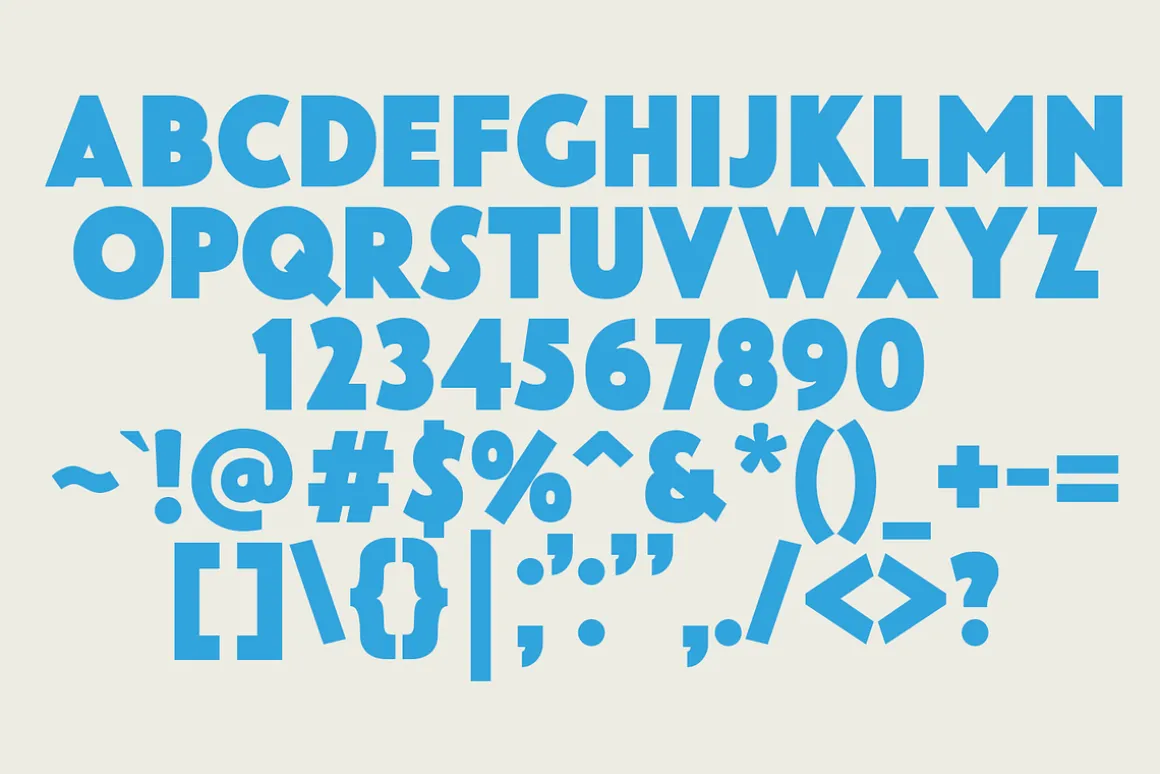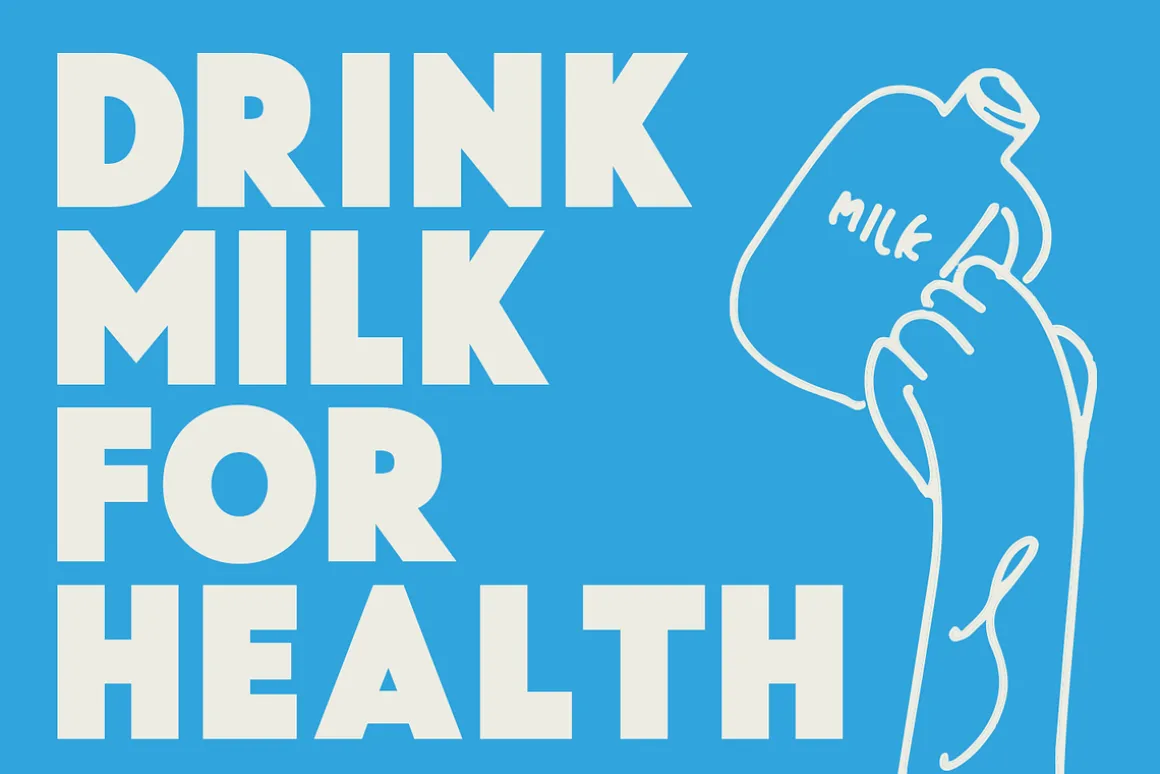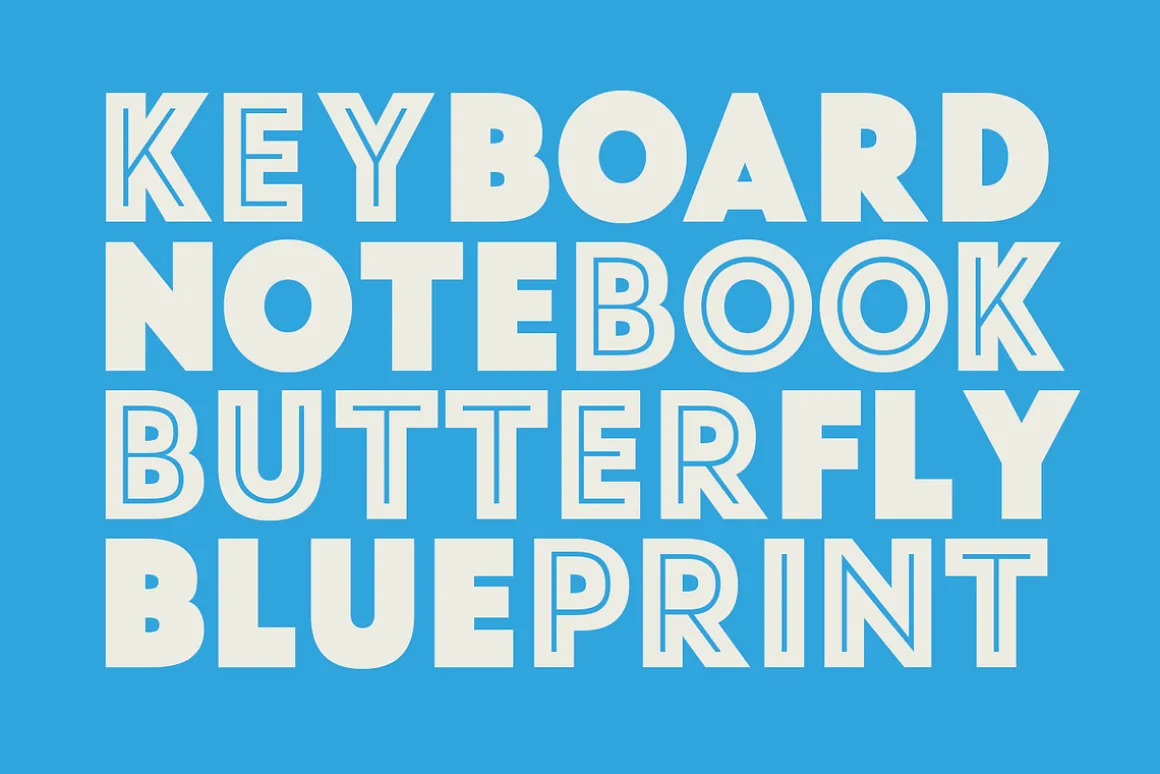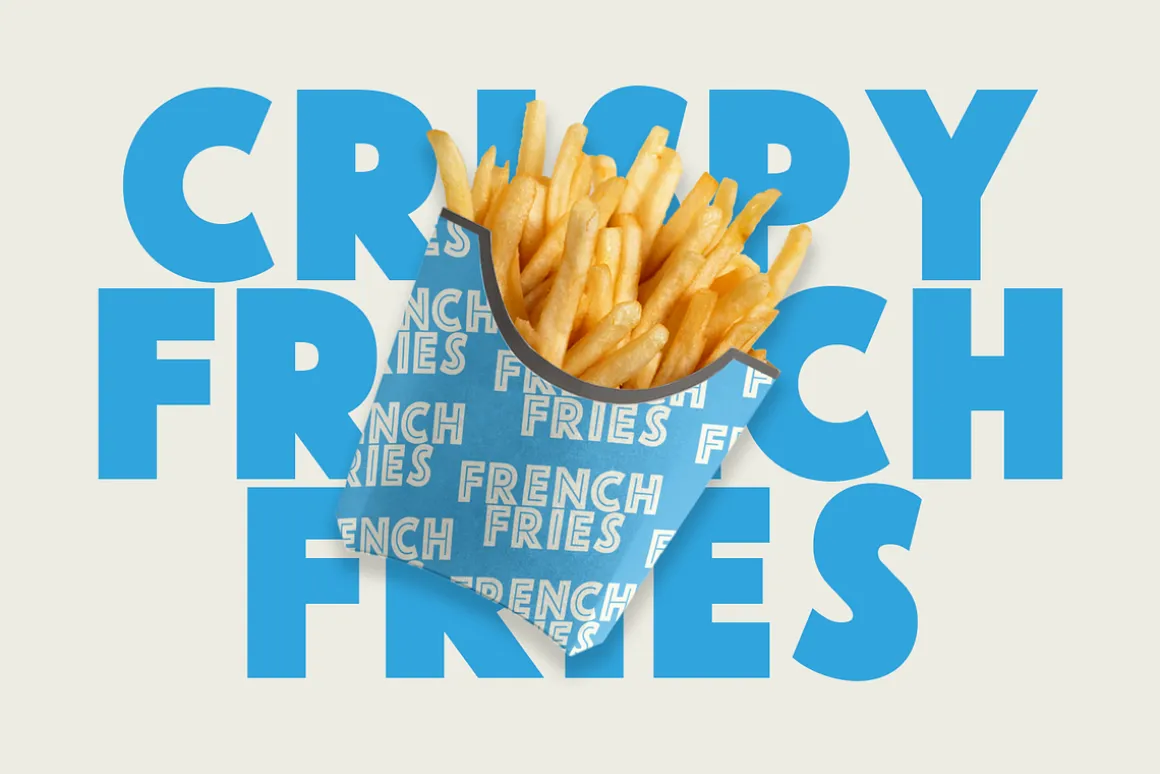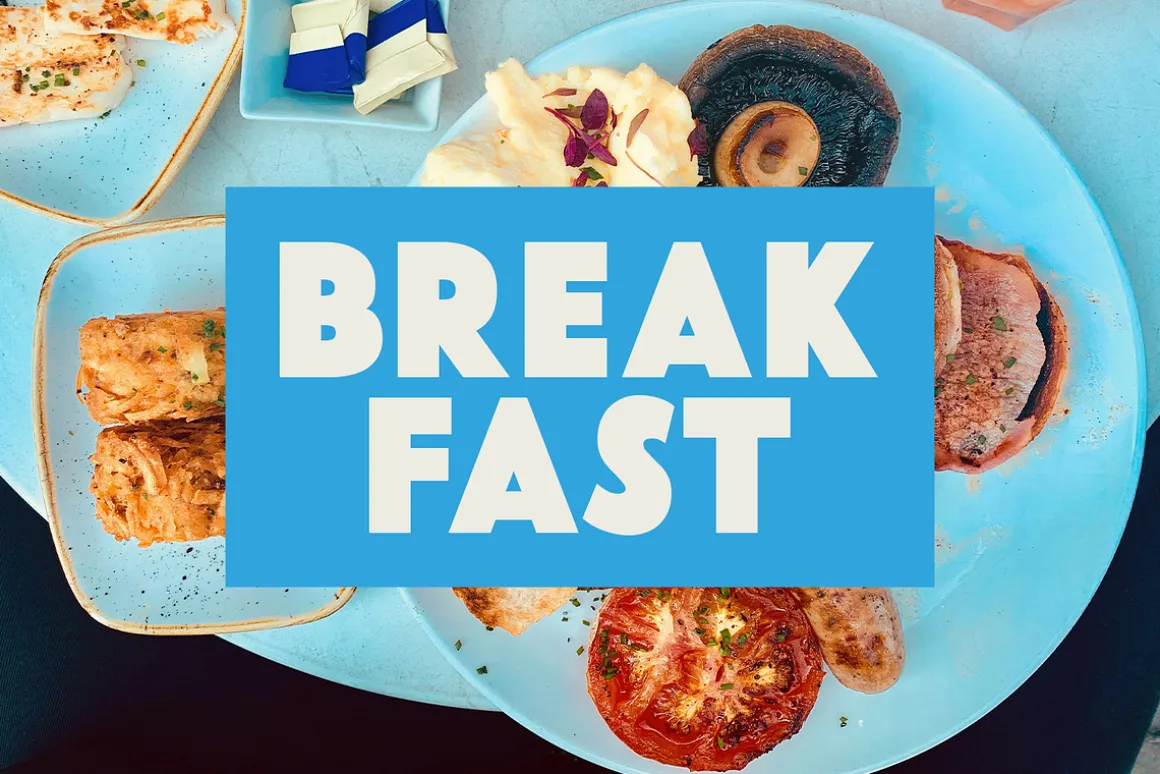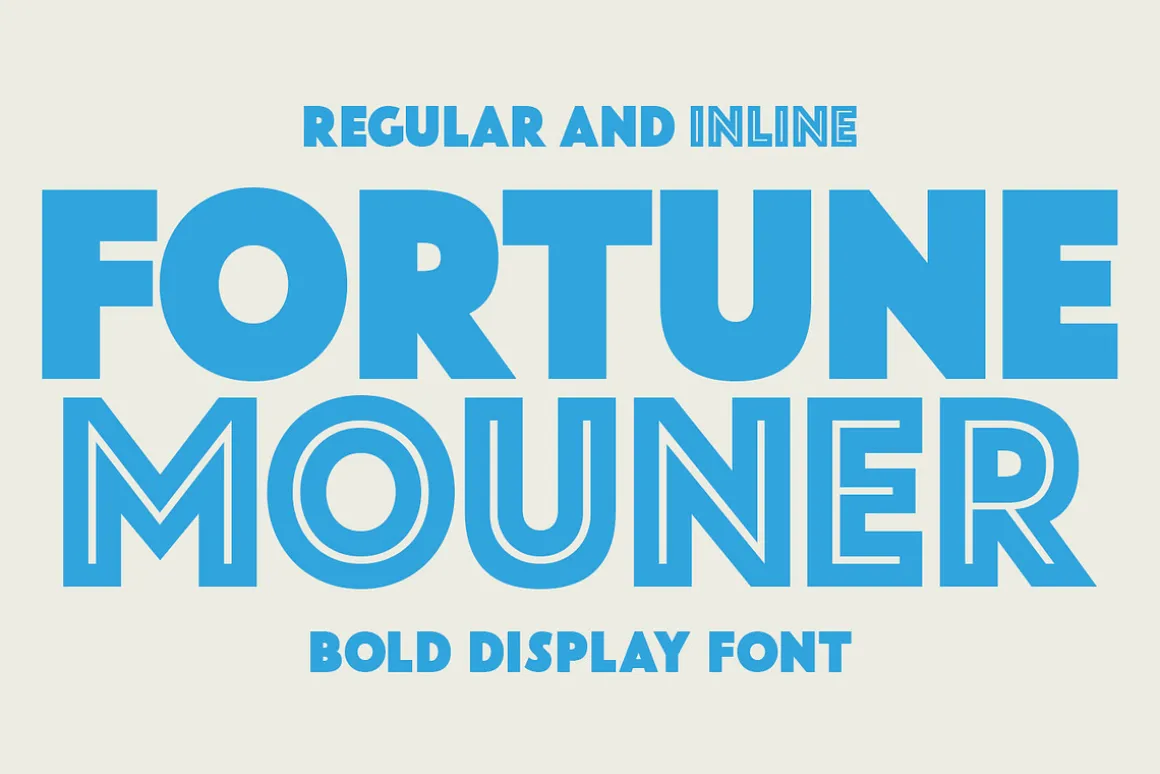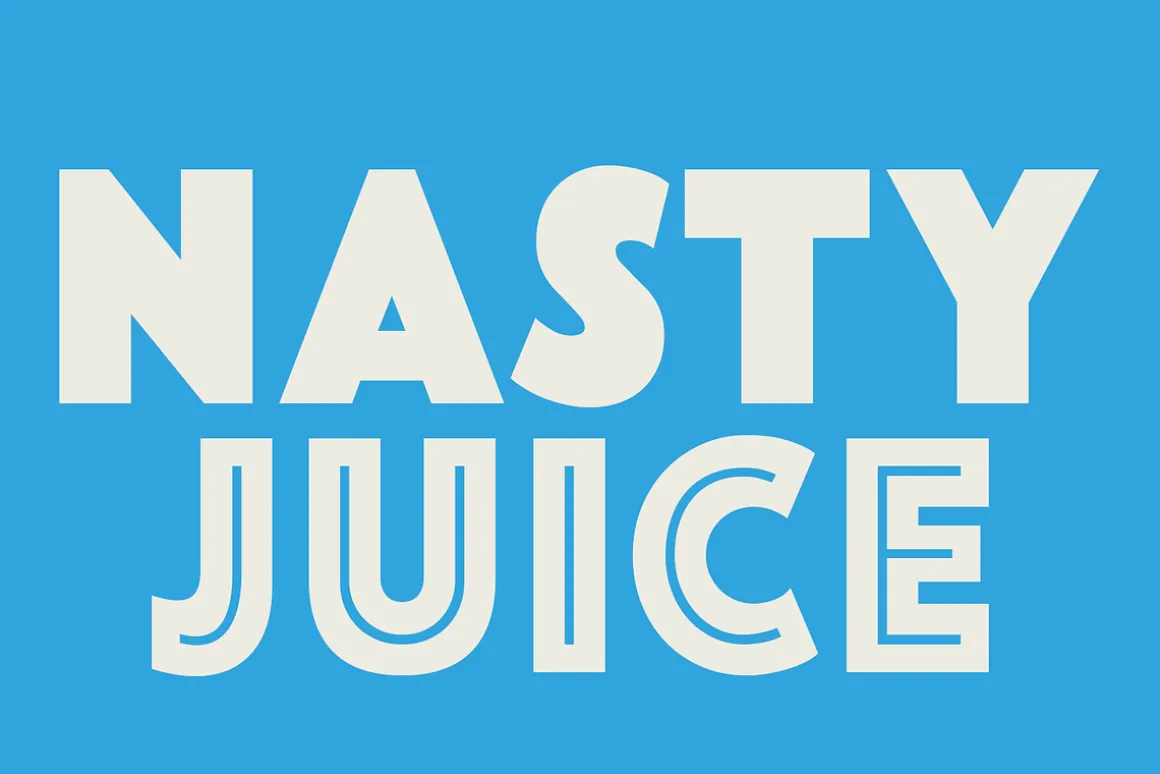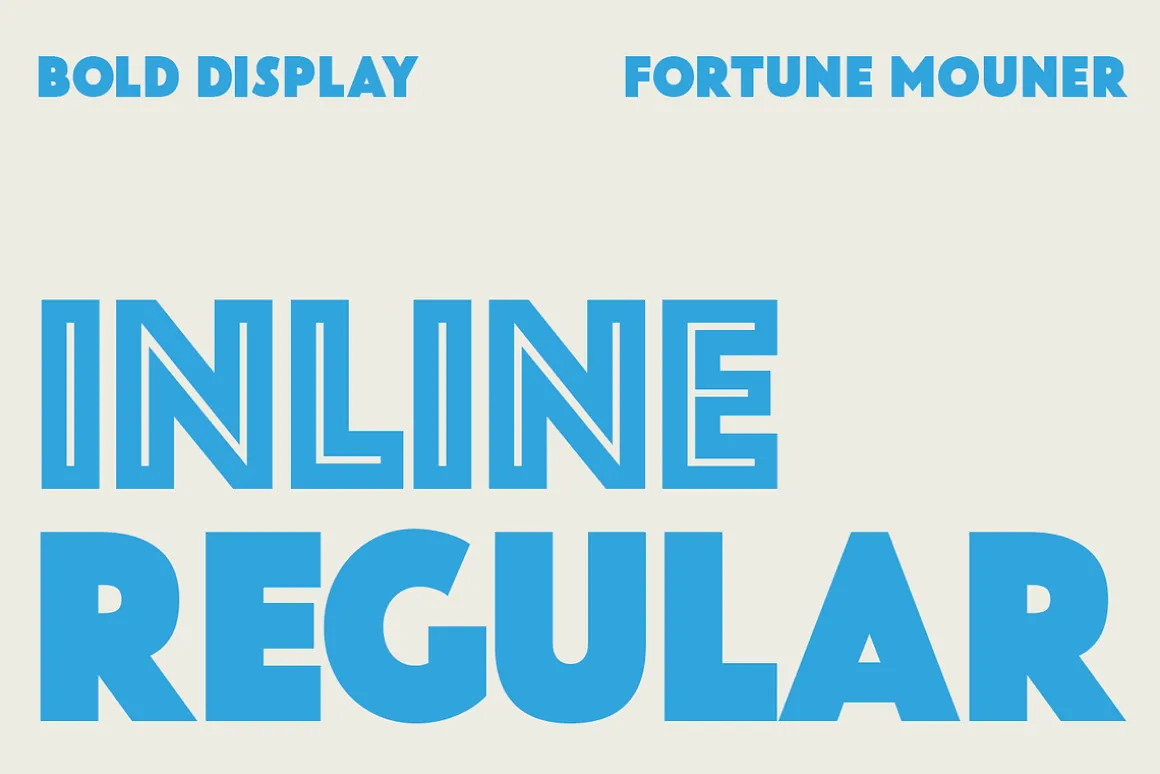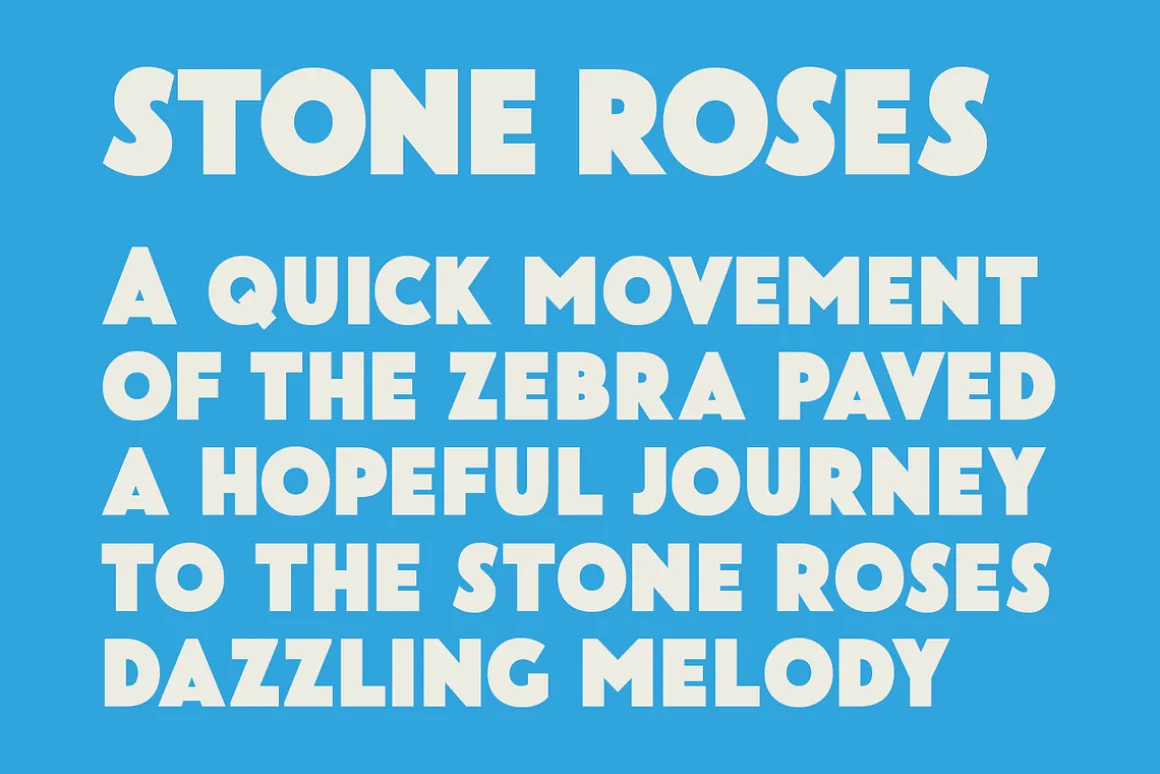
Fortune Mounter is a bold display font that demands attention and delivers style. With its clean, geometric shapes and versatile “Regular” and “Inline” styles, this font is perfect for a wide range of creative projects, including posters, branding, headlines, packaging, and social media graphics. Its eye-catching design brings modern sophistication and a retro touch to your typography, making it an excellent choice for projects that need bold visual impact. Fortune Mounter is easy to use and highly legible, ensuring your message stands out in every application